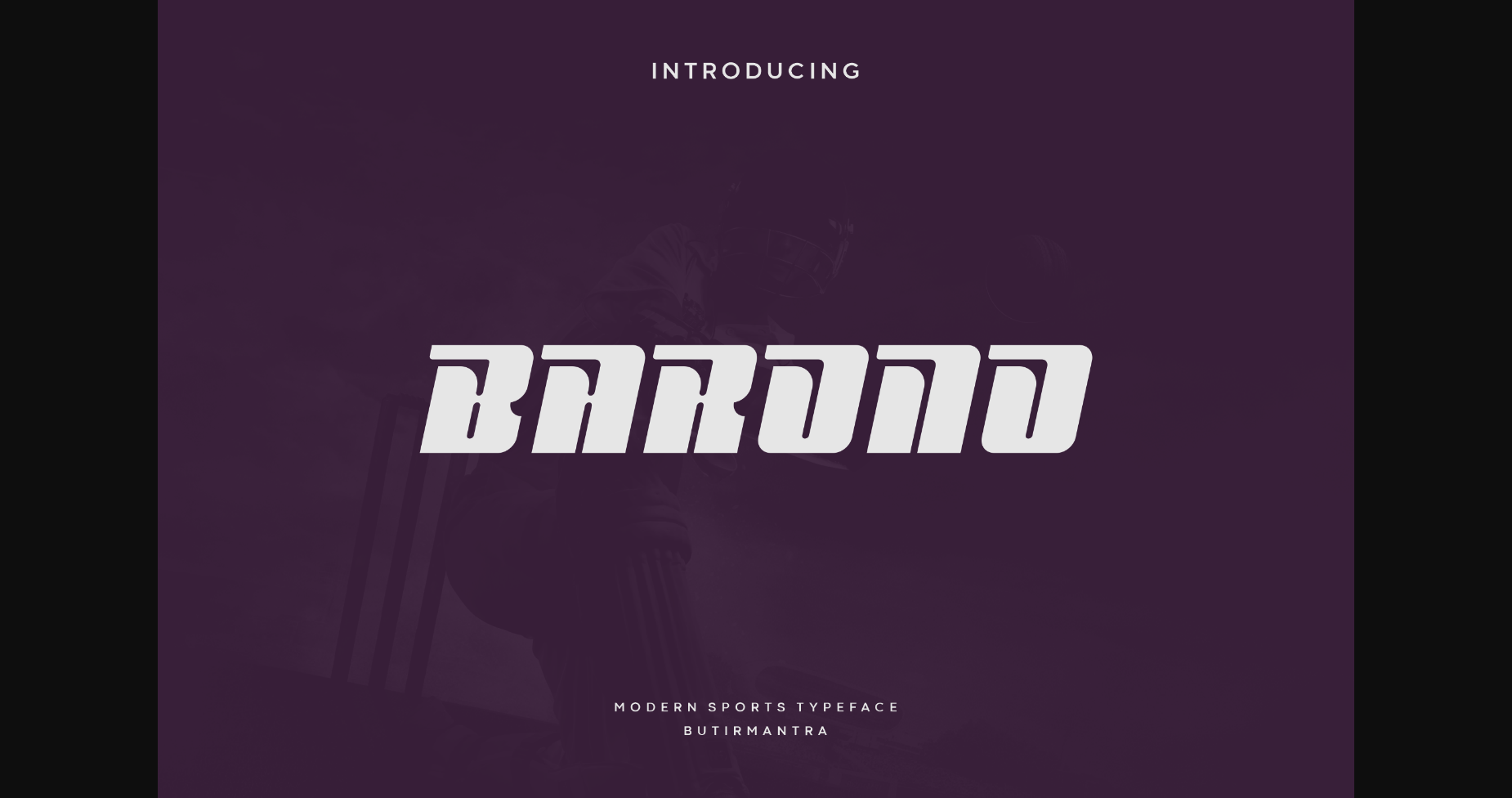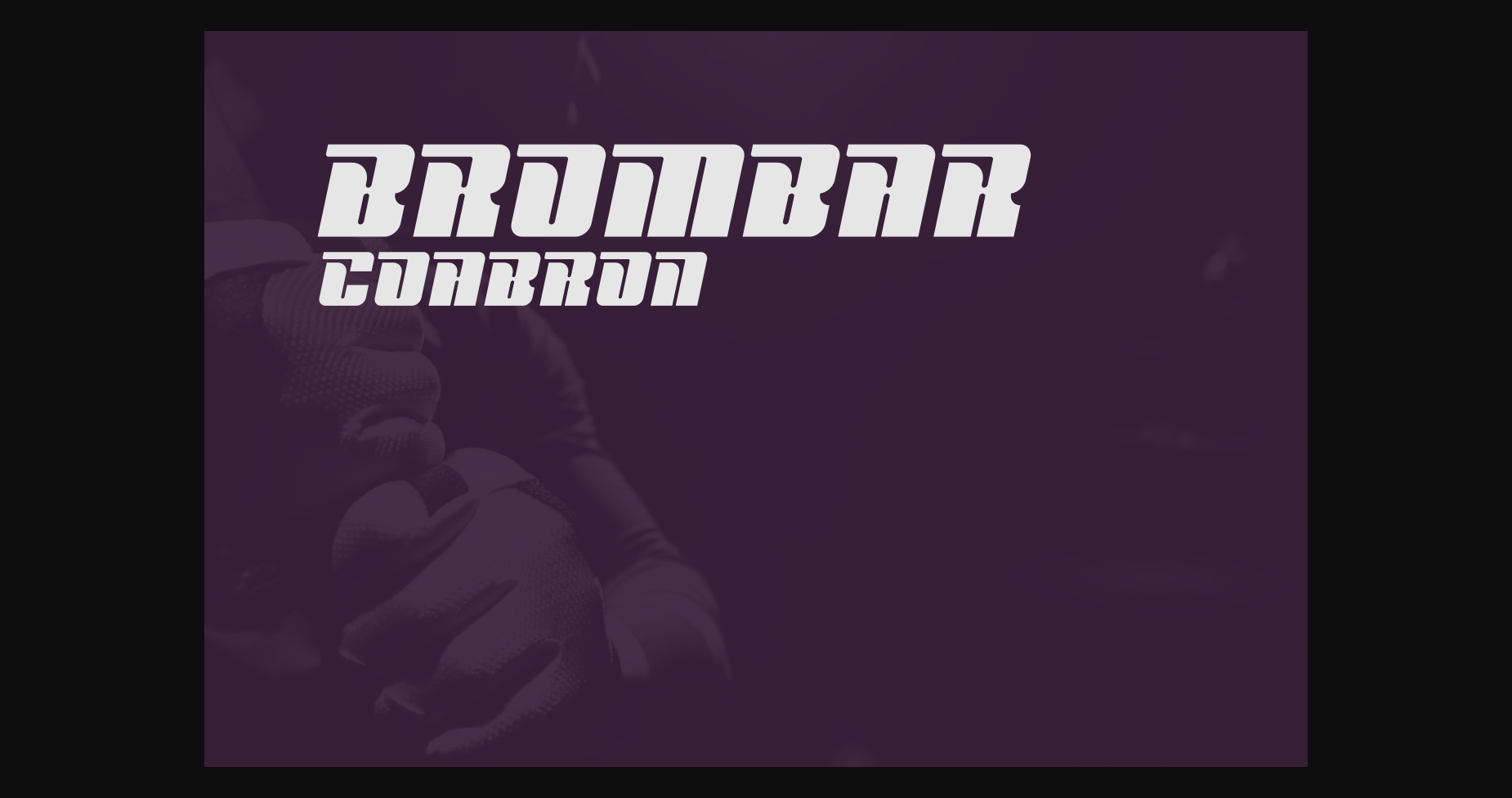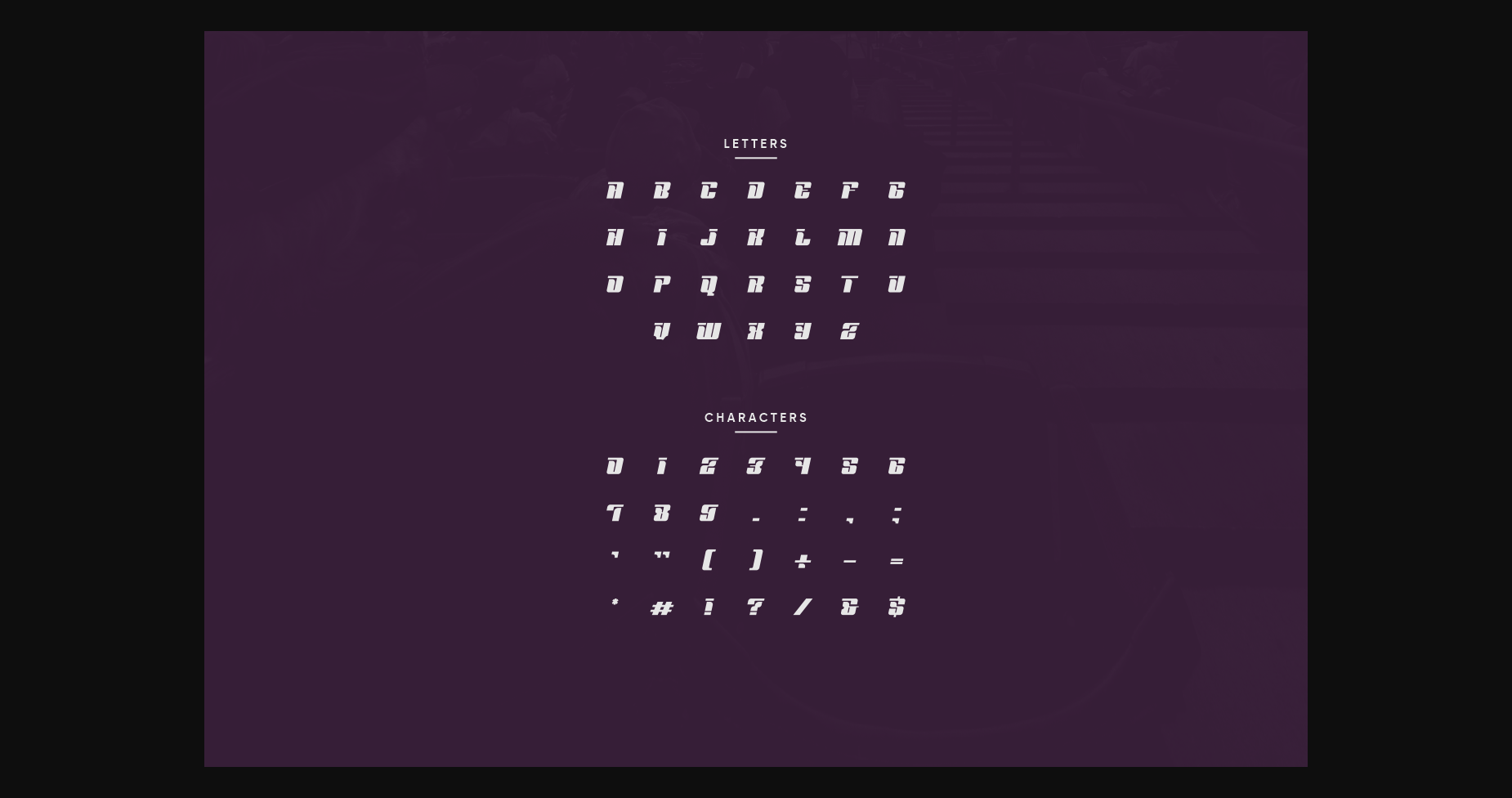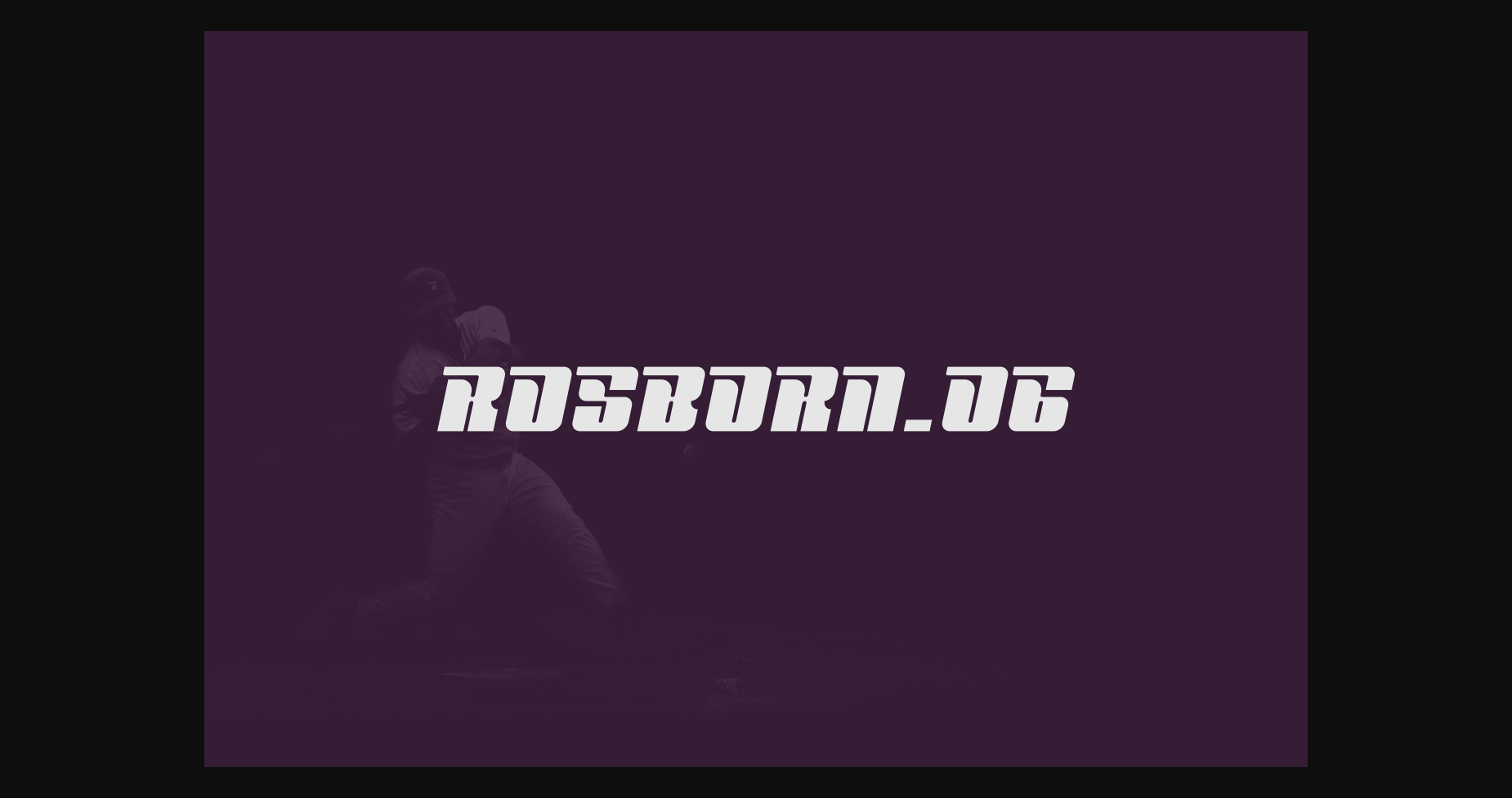
Barono Font
About Barono Font
Barono is a fresh sports font, cool sports font with wide italics, coming all-caps with modern letter cuts and dynamic slant. Ideal for sports magazine, headlines, auto racing, logo, branding, monogram, automotive or any other sports-themed design. The slanted corner cuts create an effect of power and speed, very sporty but with a slightly different and new font design. Grab it immediately for your various professional projects, it will make your designs more stand out!